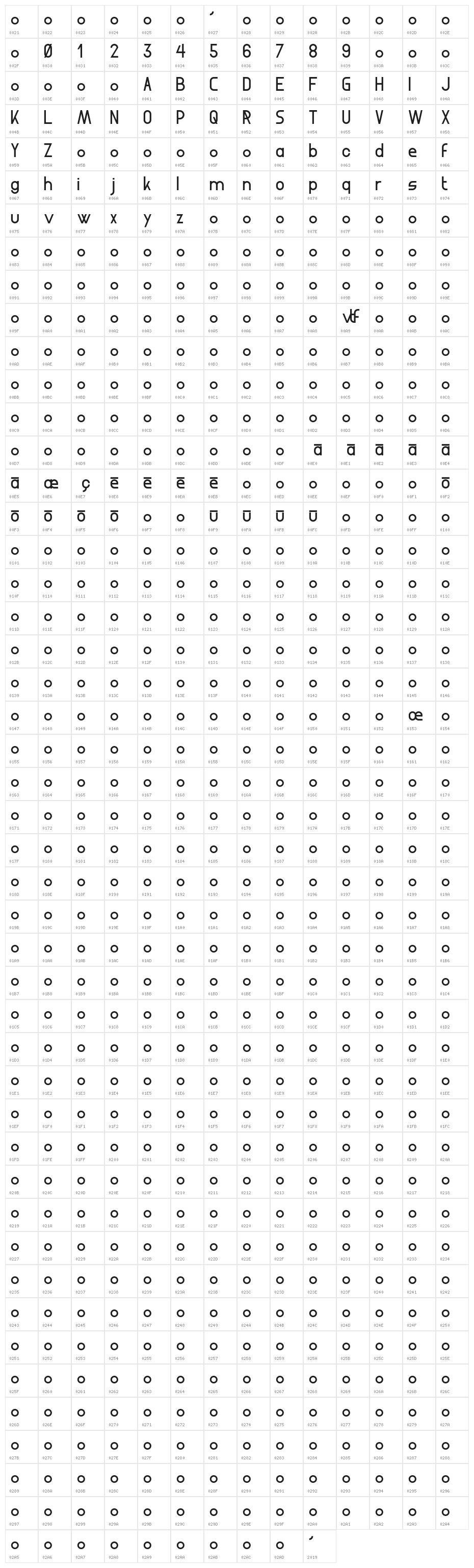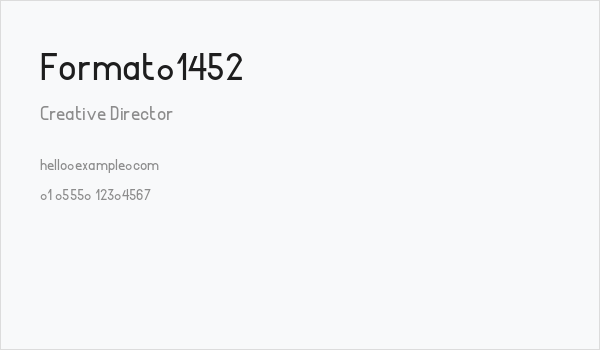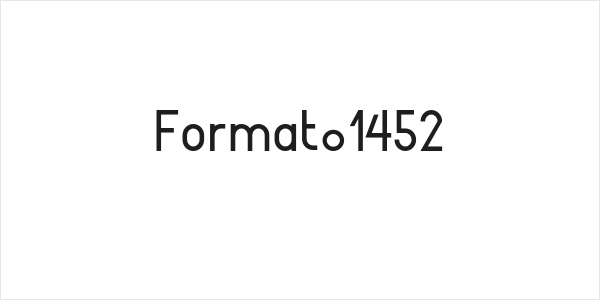
Format_1452 Font
Format_1452 Description
This font features a clean and modern sans-serif style with a geometric structure. The characters are uniform in width, providing a balanced and harmonious appearance. The uppercase letters are bold and assertive, while the lowercase letters maintain a consistent flow with rounded edges. The numerals are clear and legible, making them suitable for various applications. Special characters are included, enhancing the font's versatility. The overall design is sleek and contemporary, ideal for digital and print media.